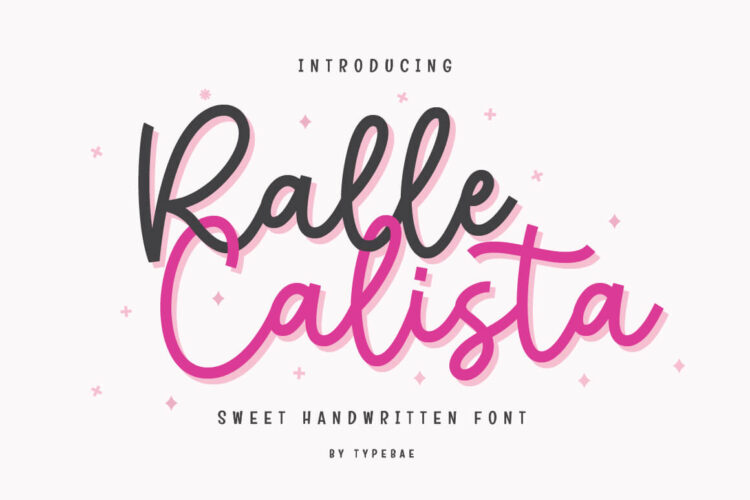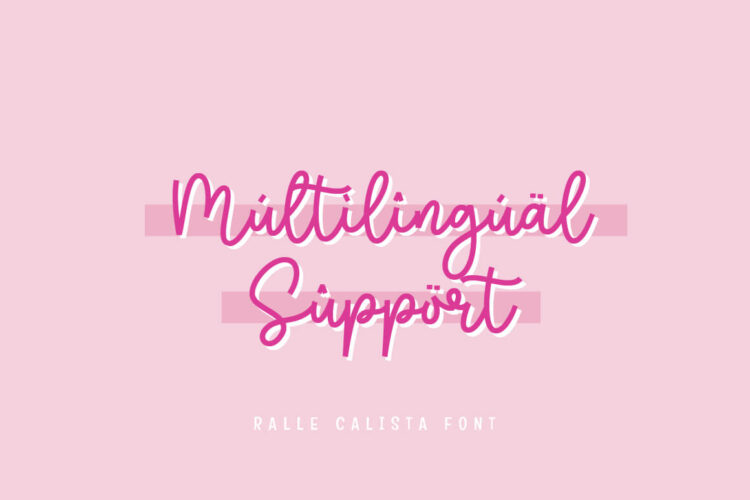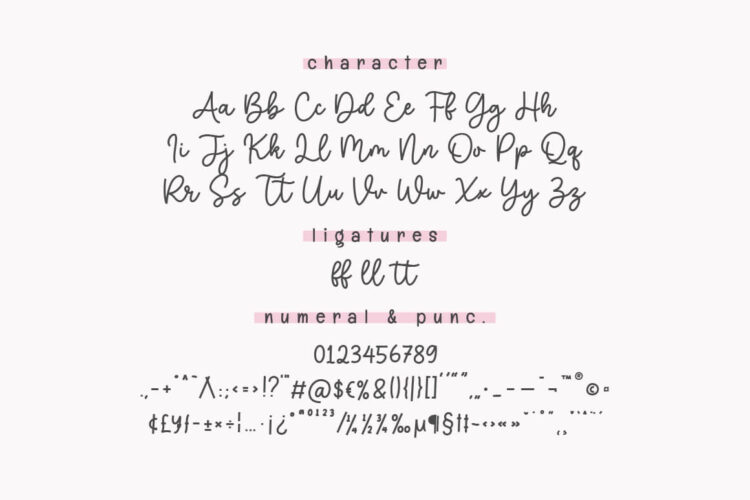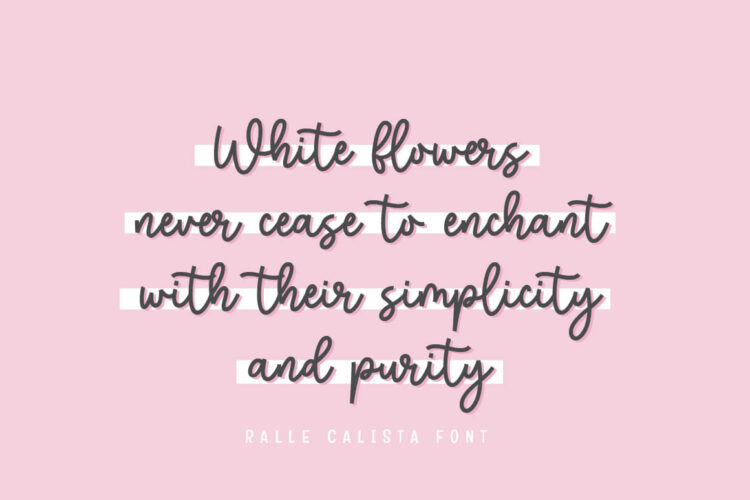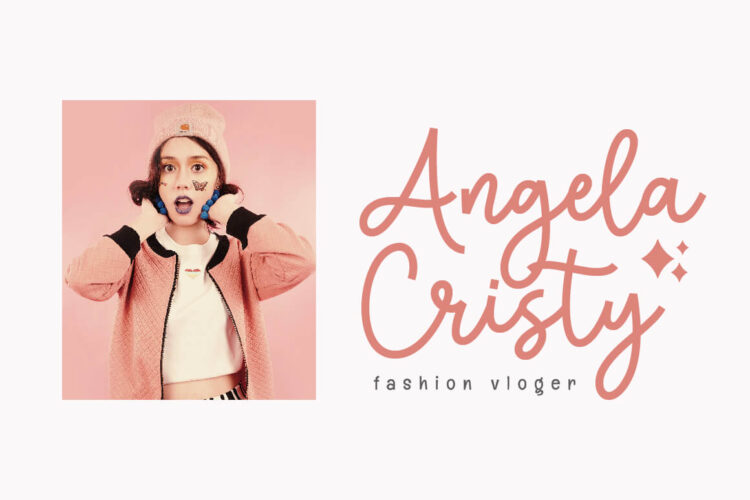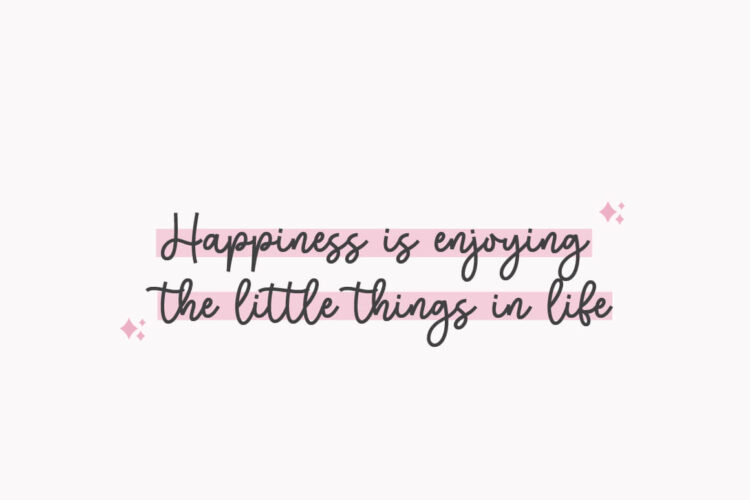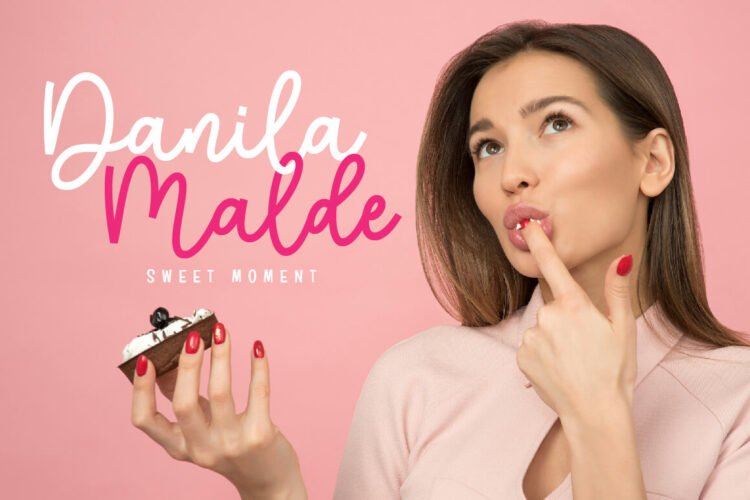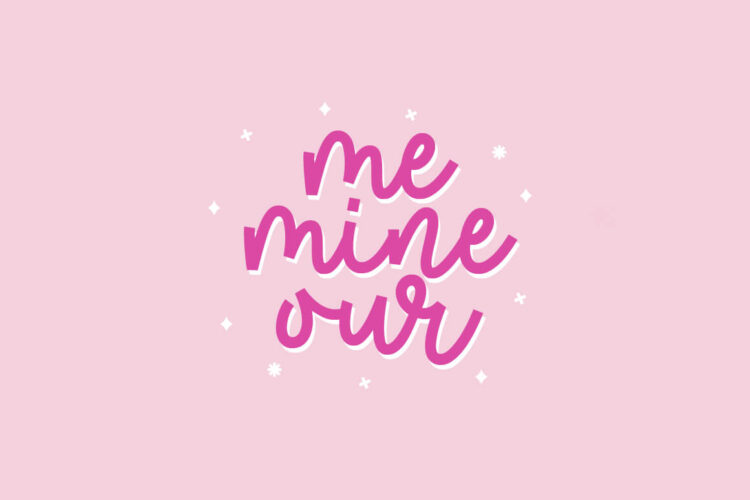
Ralle Calista
Ralle Calista is a beautiful, sweet, and stylish handwriting script font, suitable for a wide range of applications. From greeting cards to headlines, wedding themes, birthdays, quotes, stickers, or simply as overlays on images, this font will surely enhance the quality of any creative project.
• Uppercase, Lowercase & Ligatures
• Numeral, Punctuation & Symbol
• Multilingual
Ralle Calista – Sweet Script Font